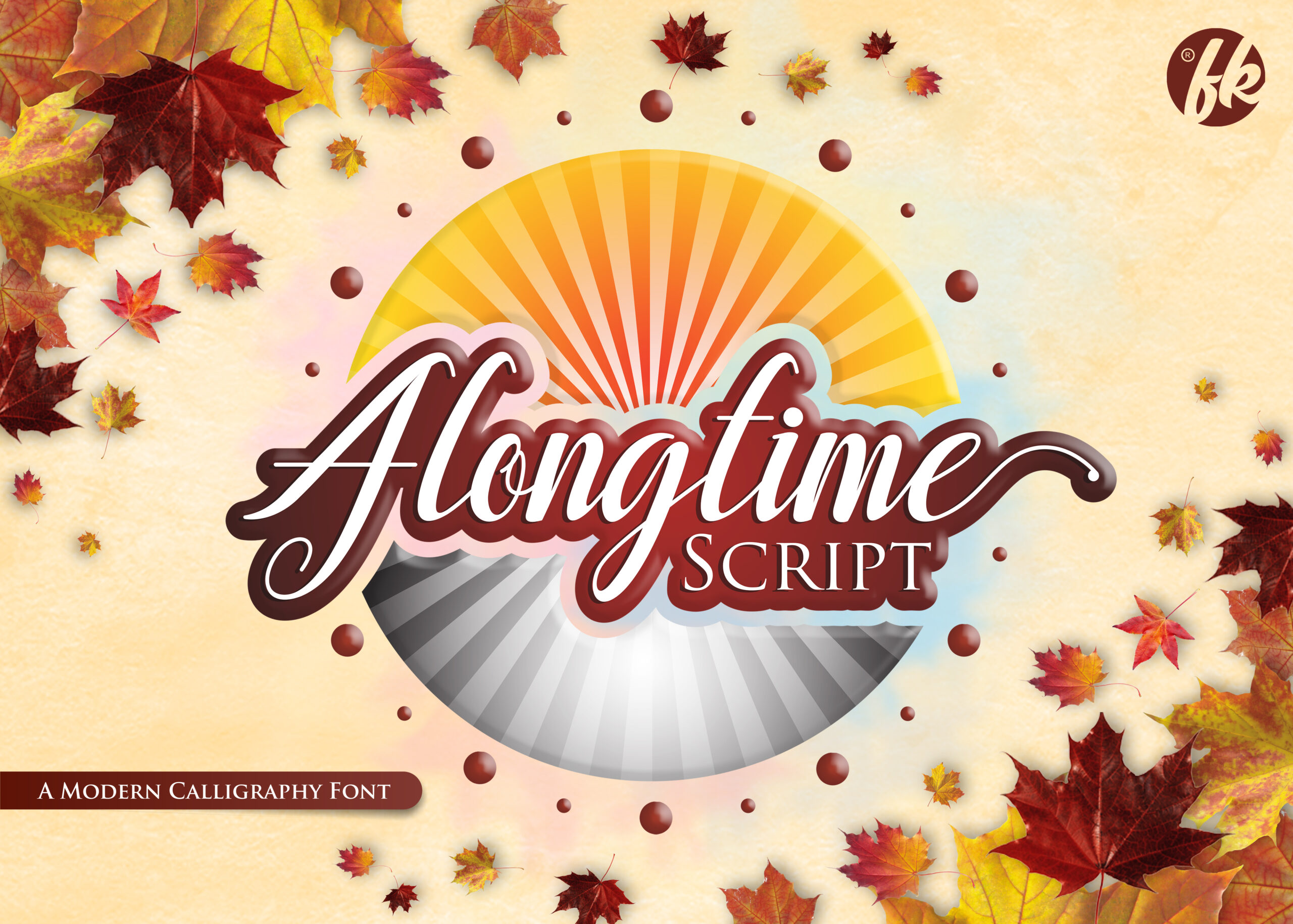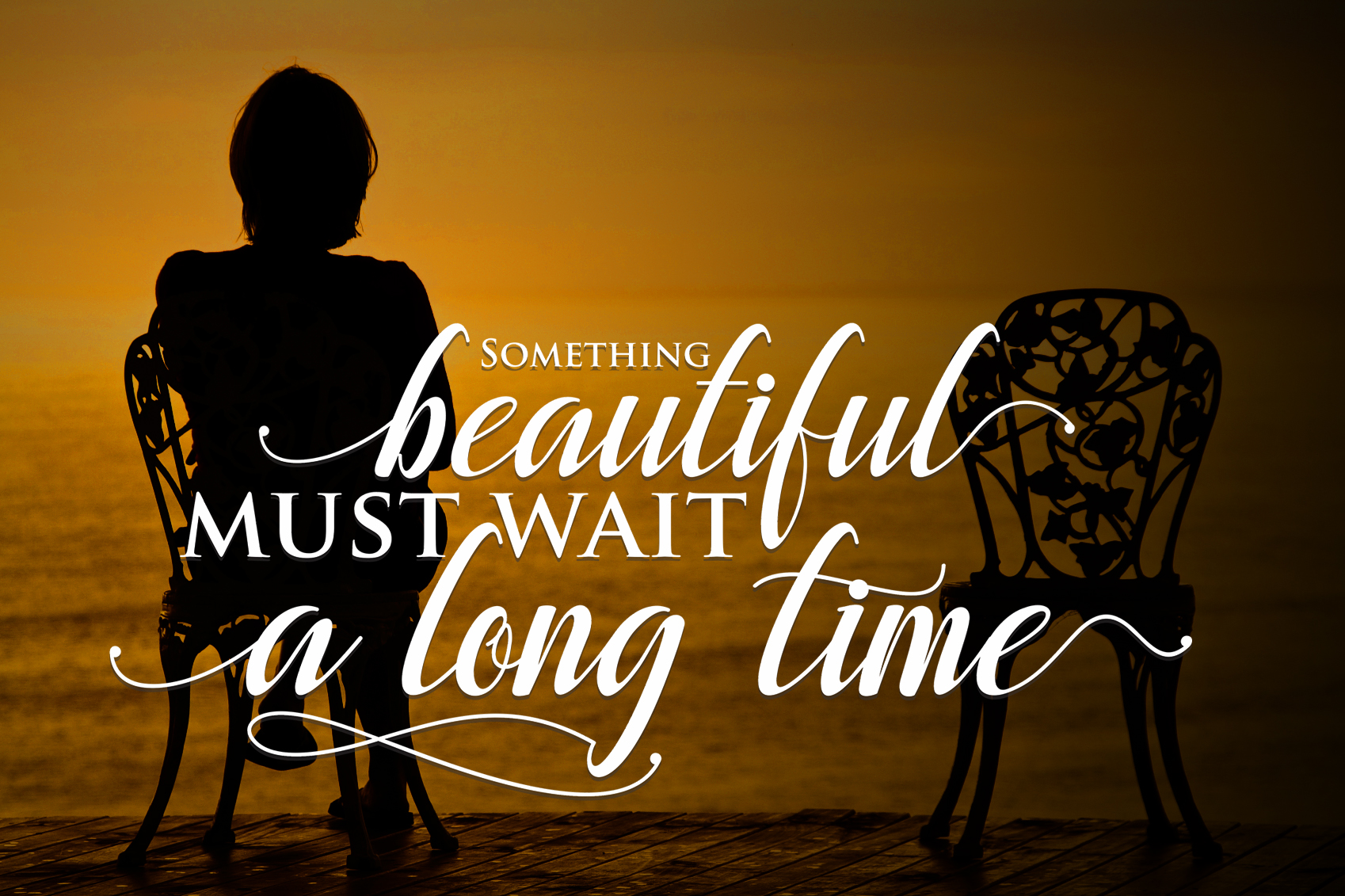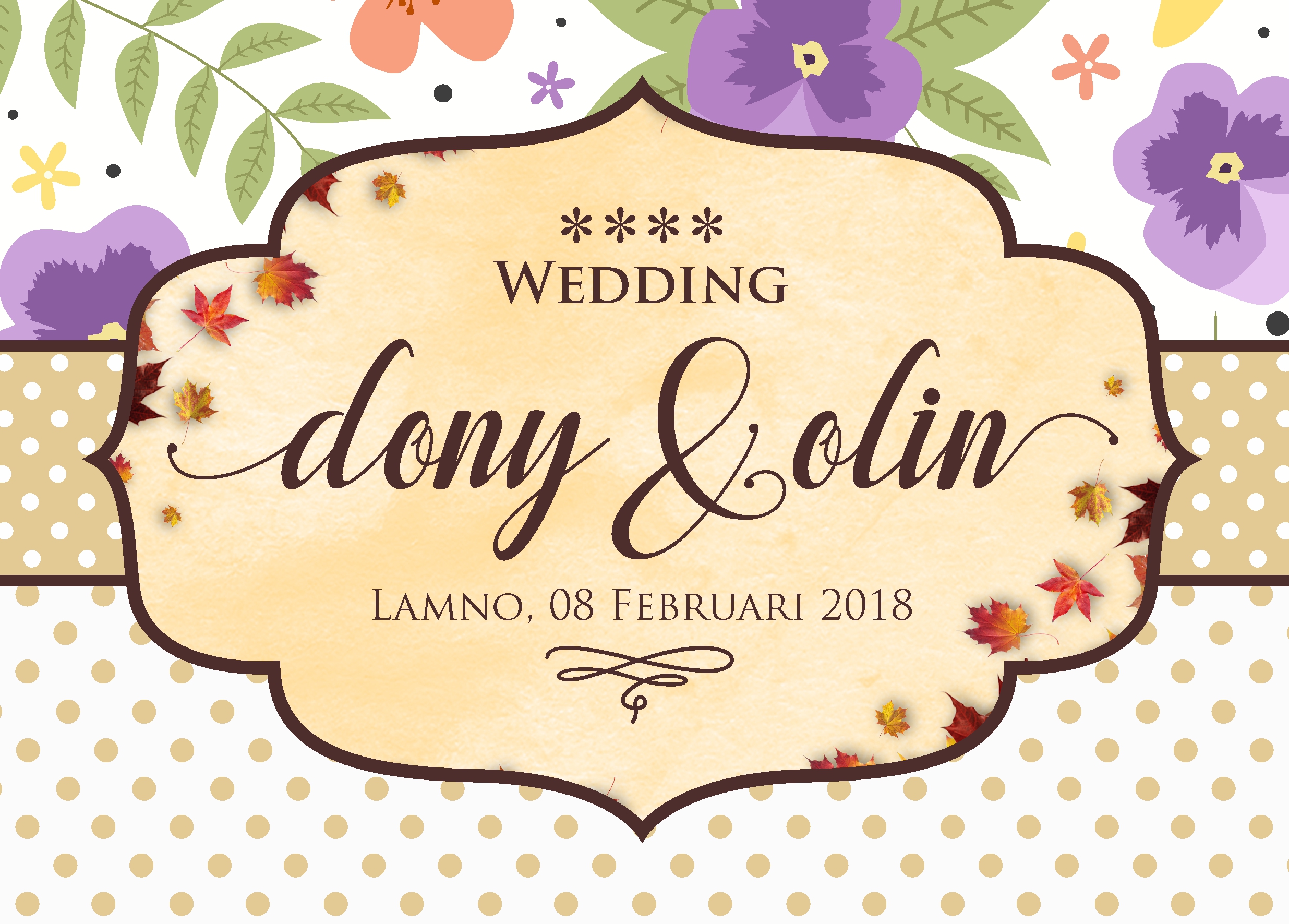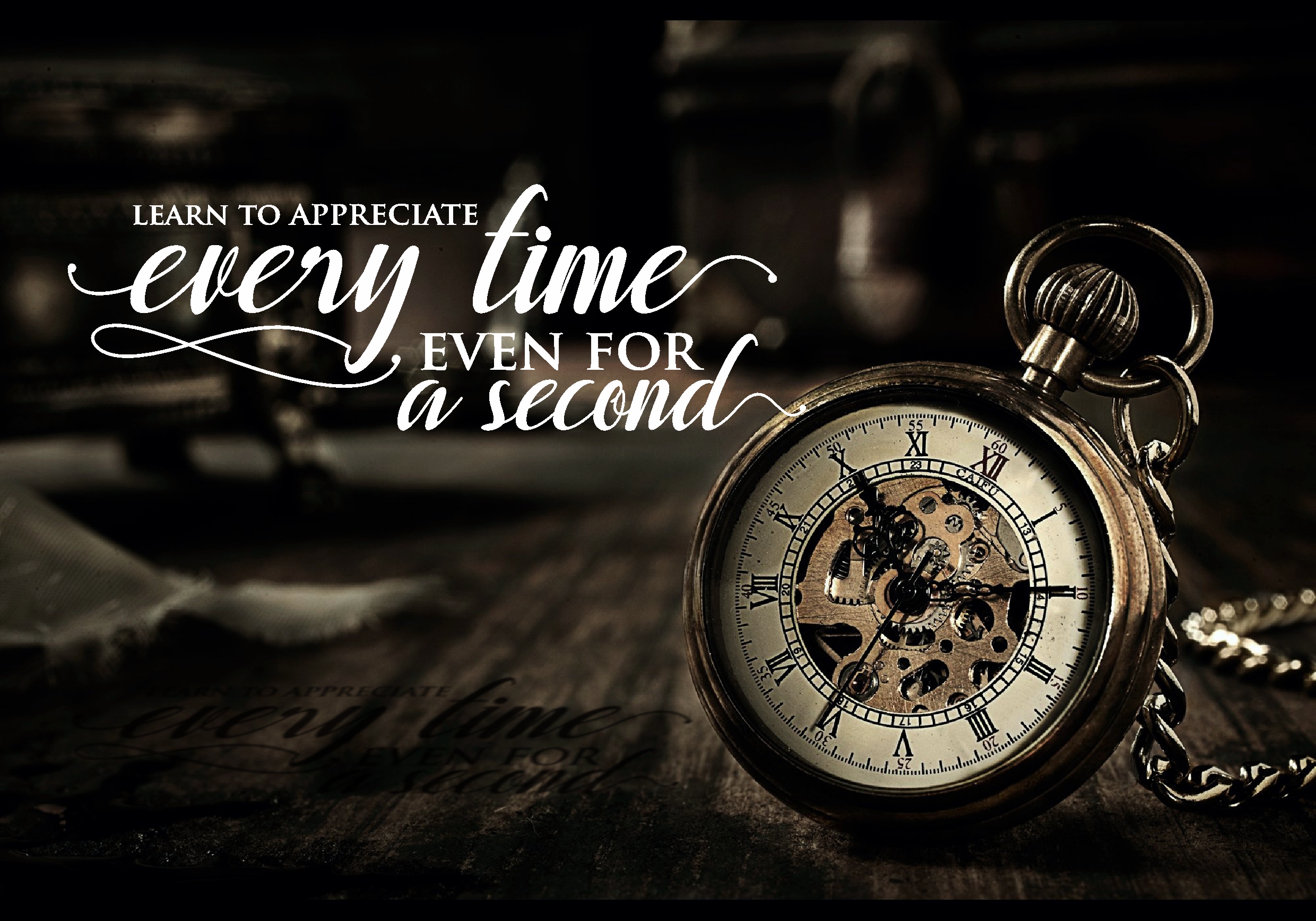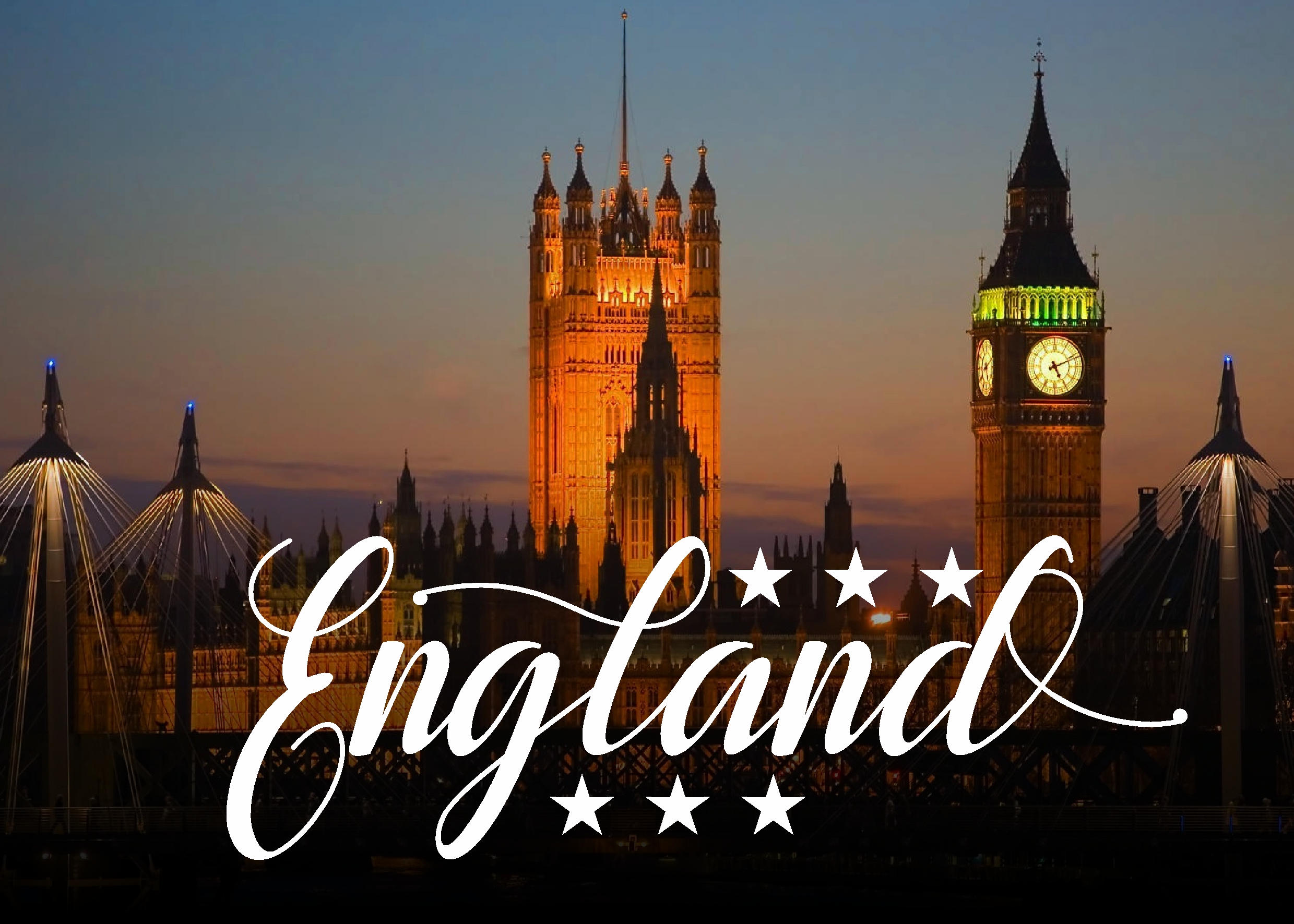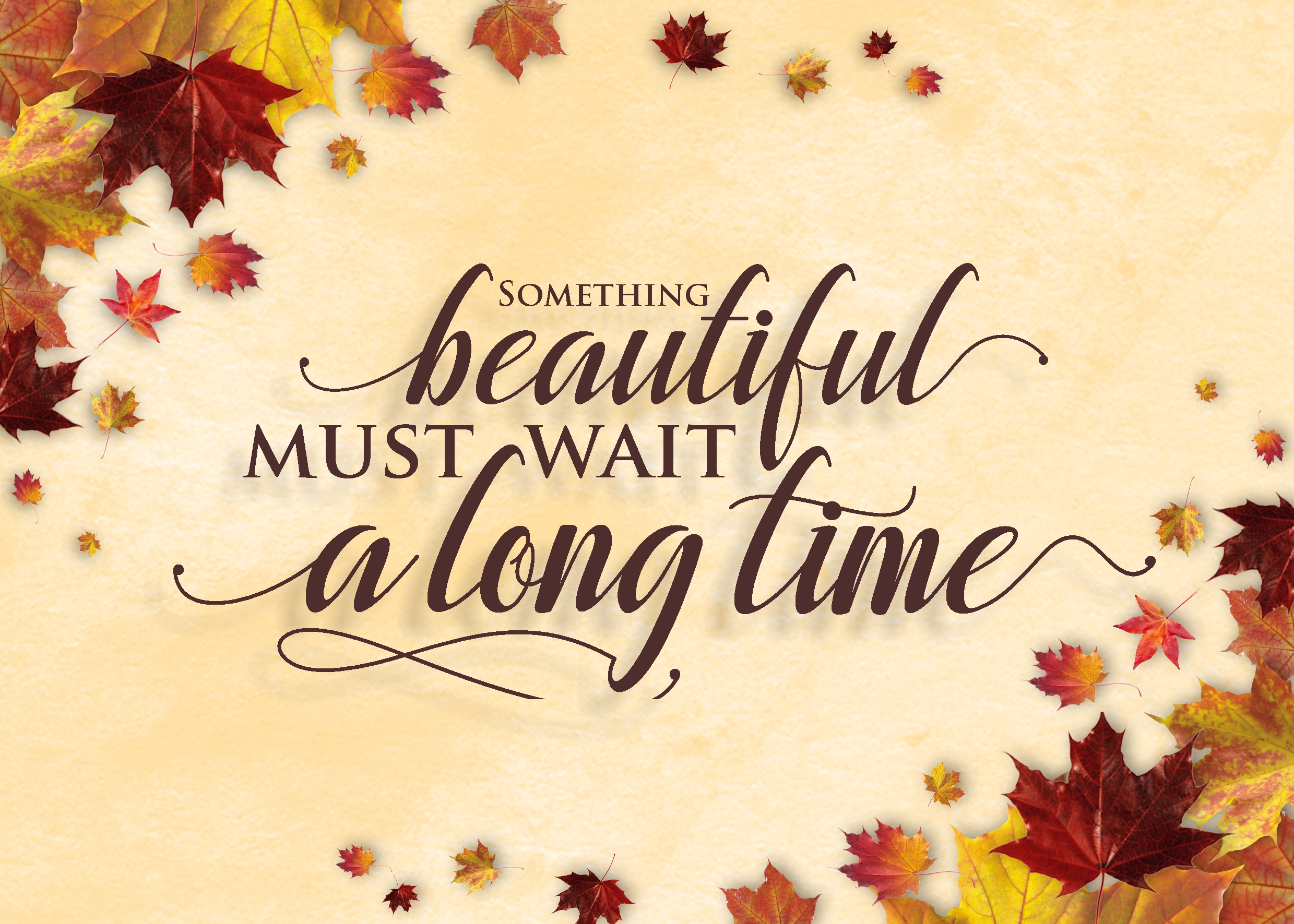
Alongtime Script Font
About Alongtime Script Font
“Alongtime is a work of art that relays the story of long waiting in order to finally achieve true happiness. Value all your time, even down to the smallest second.” A fresh and modern script, Alongtime is a beautiful calligraphic font that you can use to add some beauty to your designs.